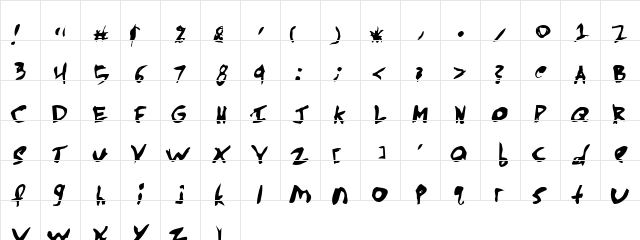
coattails Regular
Design Context for coattails
coattails is a composed and adaptable typeface that performs quietly and consistently across a wide range of design contexts.